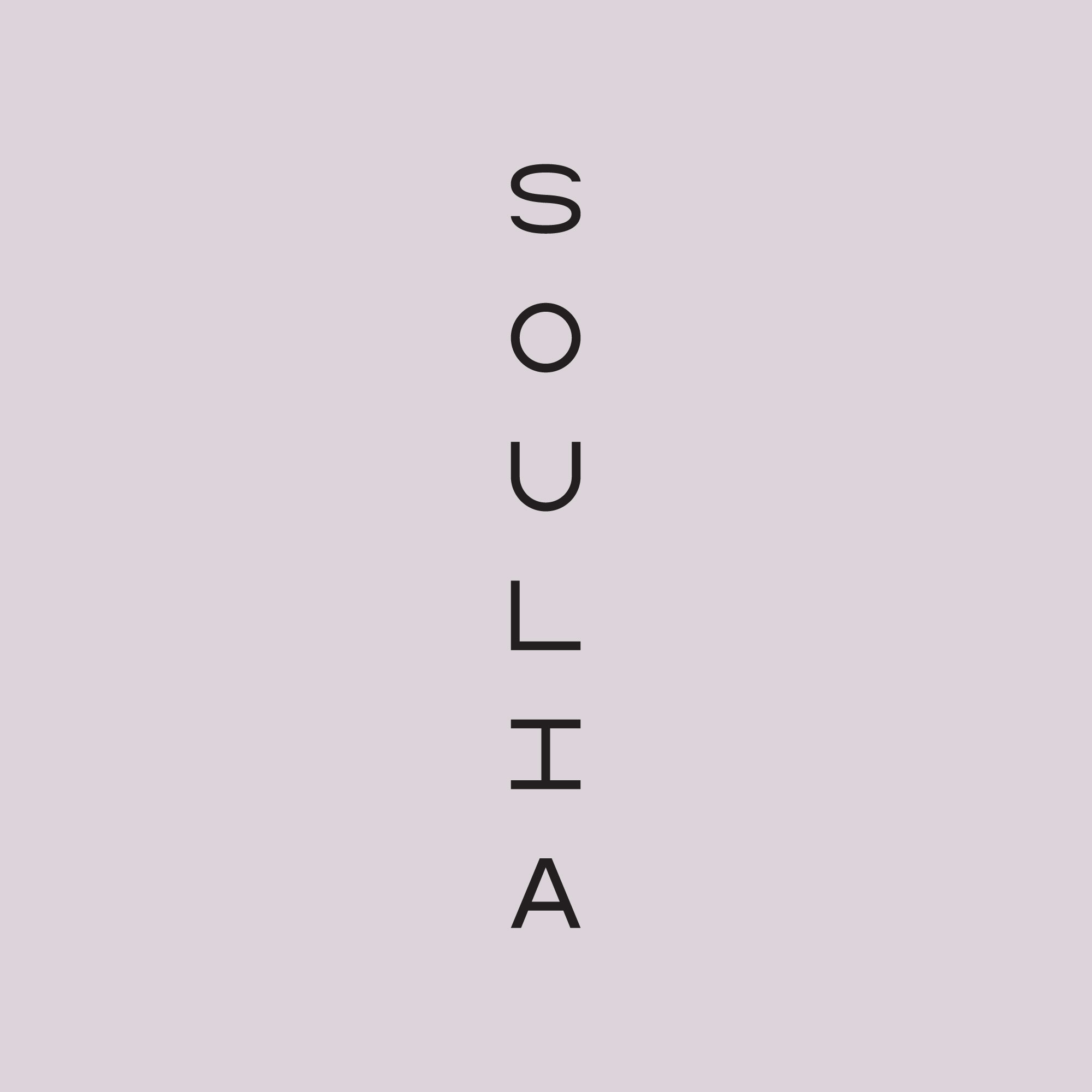
Soulia Elements Therapies
Soulia Elements Therapies provides client focussed massage and luxury aromatherapy products in London.
Louisa Sisson, the founder, asked me to create a brand identity with her that works for both sides of the business. The identity is made up of four brand elements that can be combined together across stationery, gift vouchers, packaging and online.
Brand element 1: an eye
Inspired by the third eye, this minimal eye includes an optical sunburst graphic and is the soul element.
Brand element 2: a letterfall
The name is drawn in bespoke mono-width letters that cascade downwards with the lightness of fleeting thoughts.
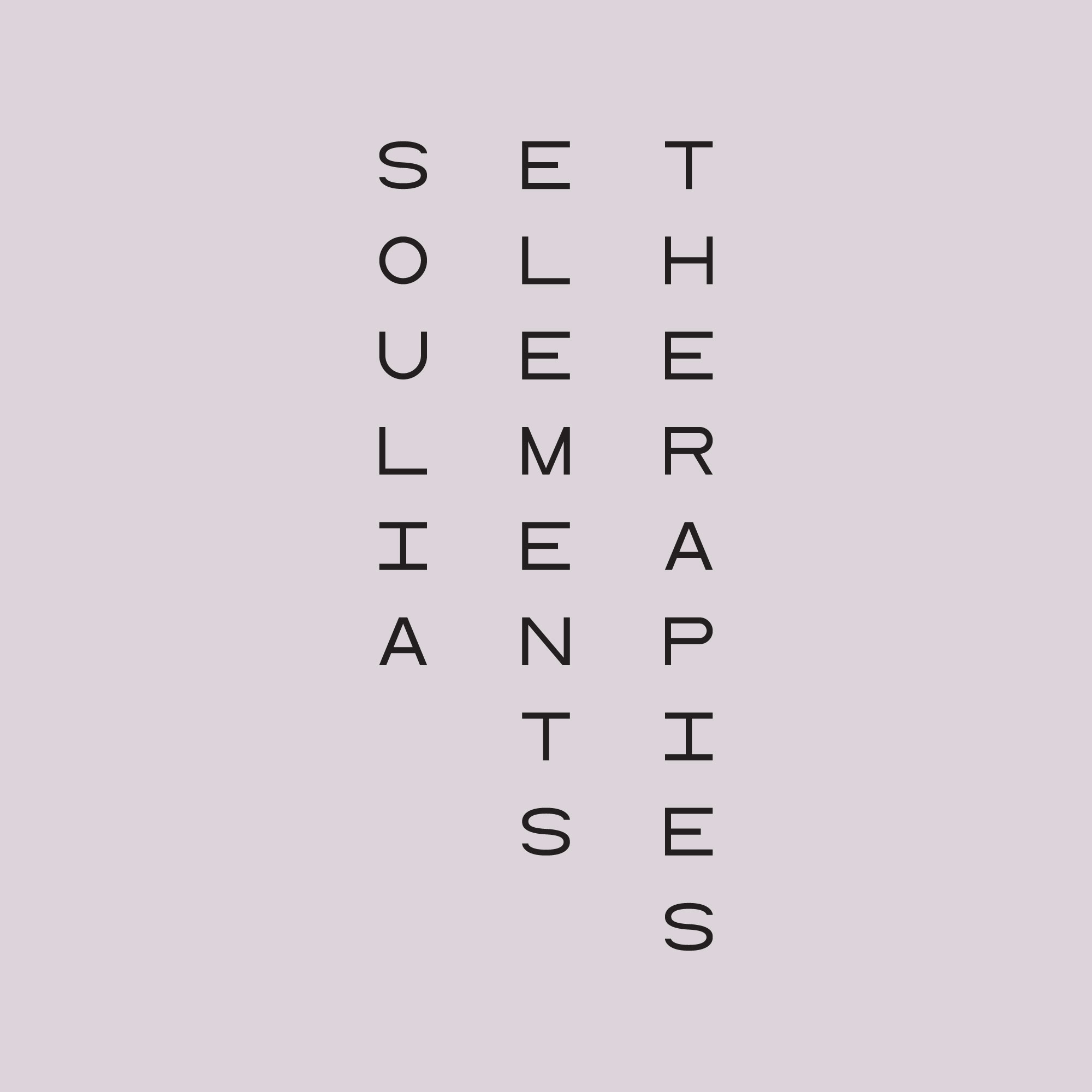
Brand element 3: a monogram
Giving weight and anchoring different graphic applications, the monogram brings together the three first letters and forms the bones of the brand - crossing over and offering structure.
Brand element 4: a rose grey palette
A grey, warmed up with a little rose softens the elements and is the tissue of the brand. Used under black and white photography and to define digital spaces.
Shown here with the Soulia shorthand logo.